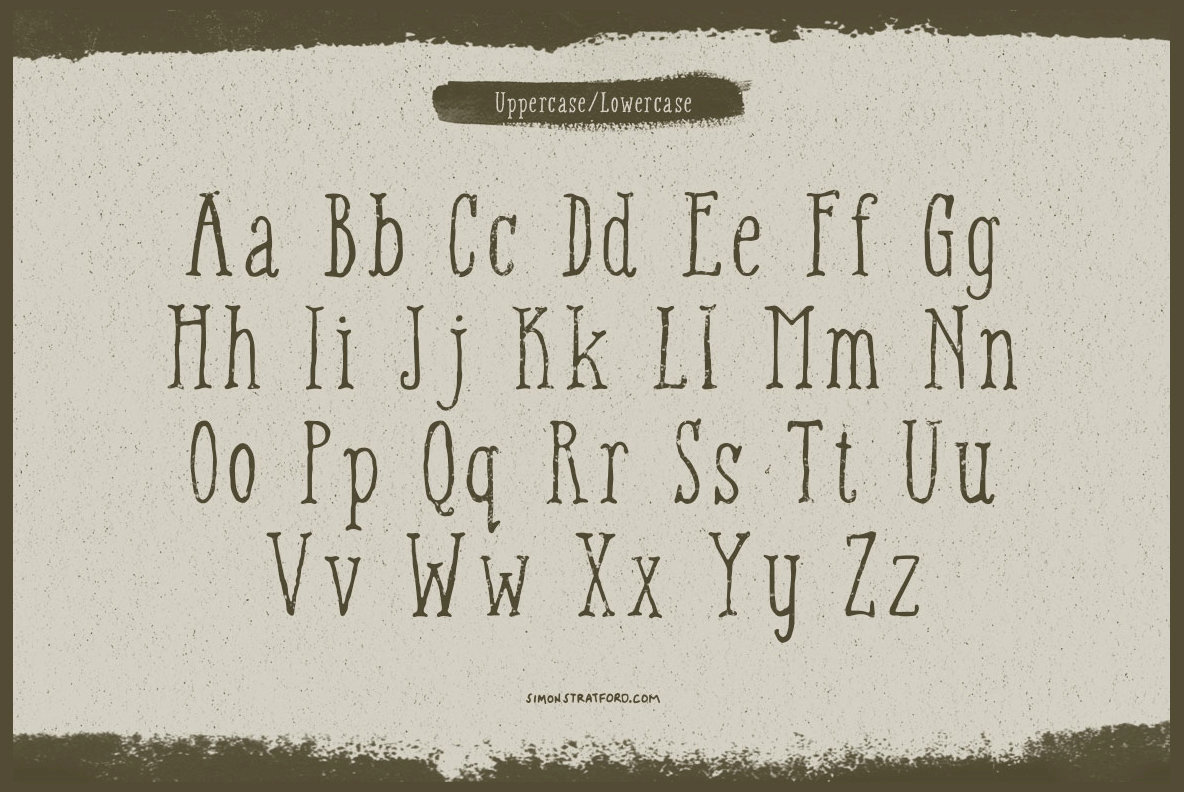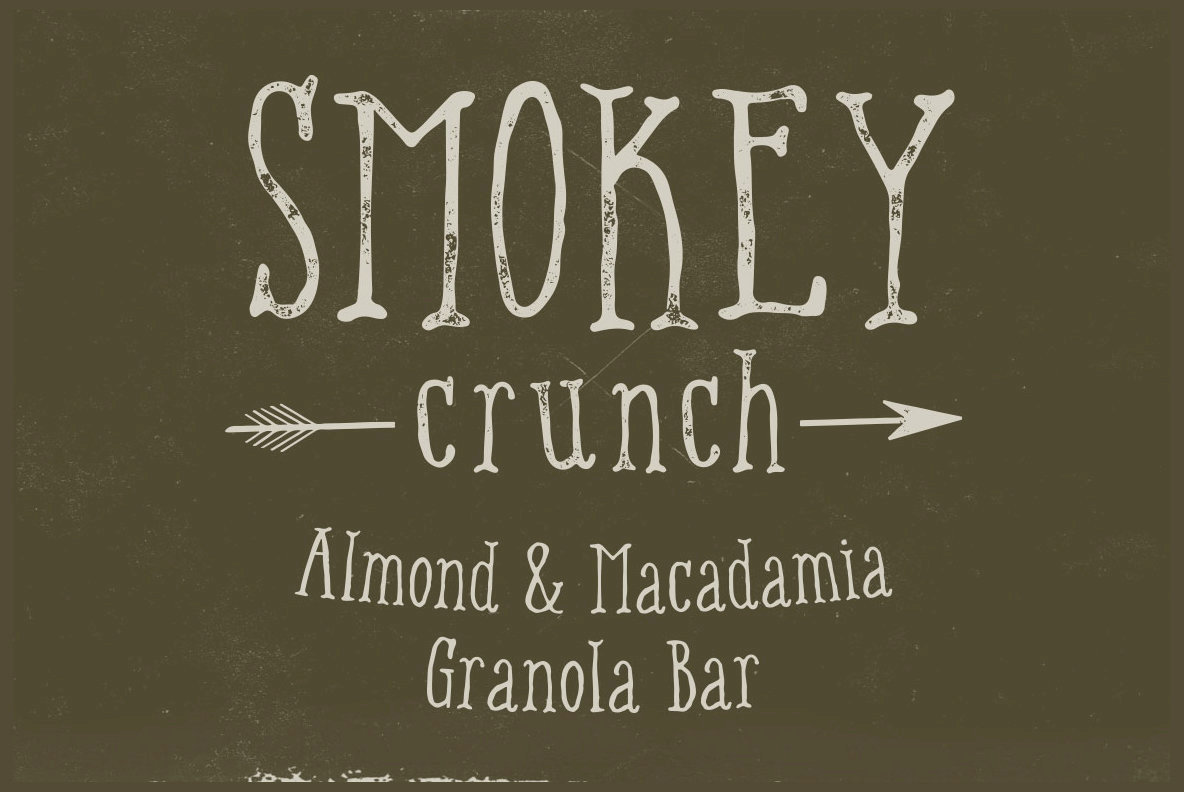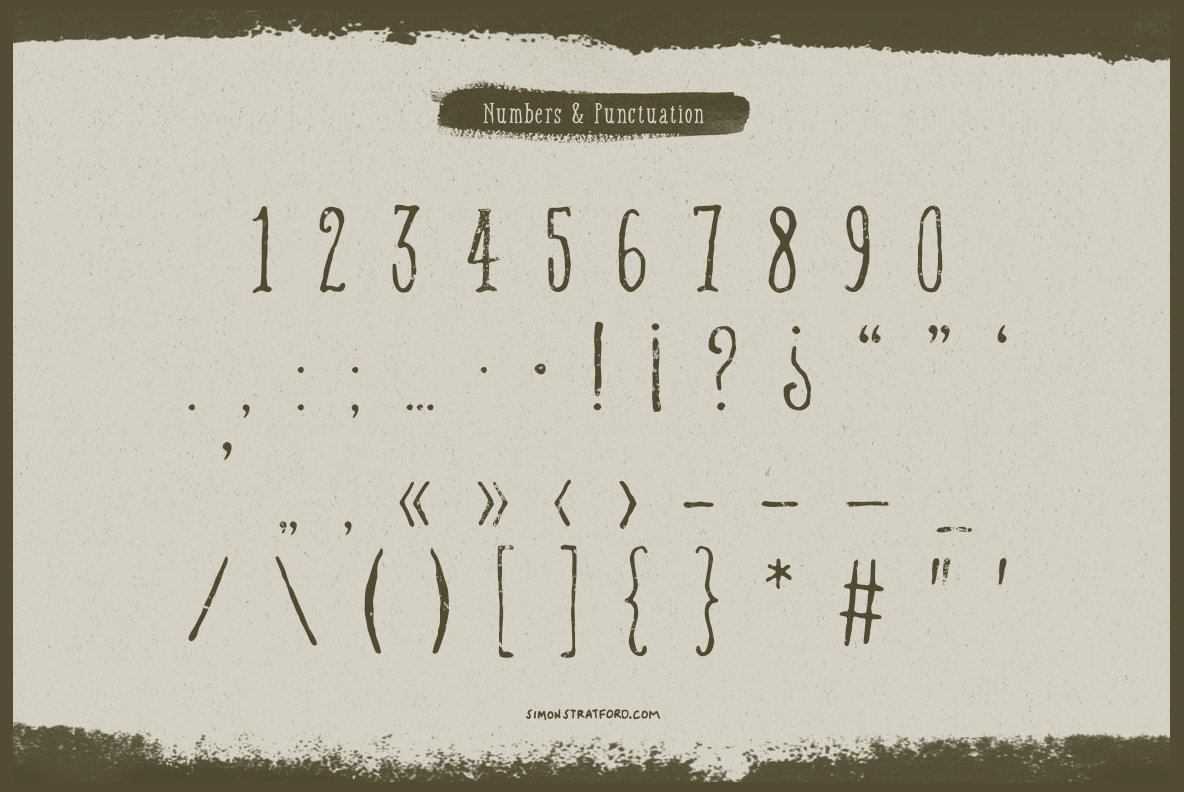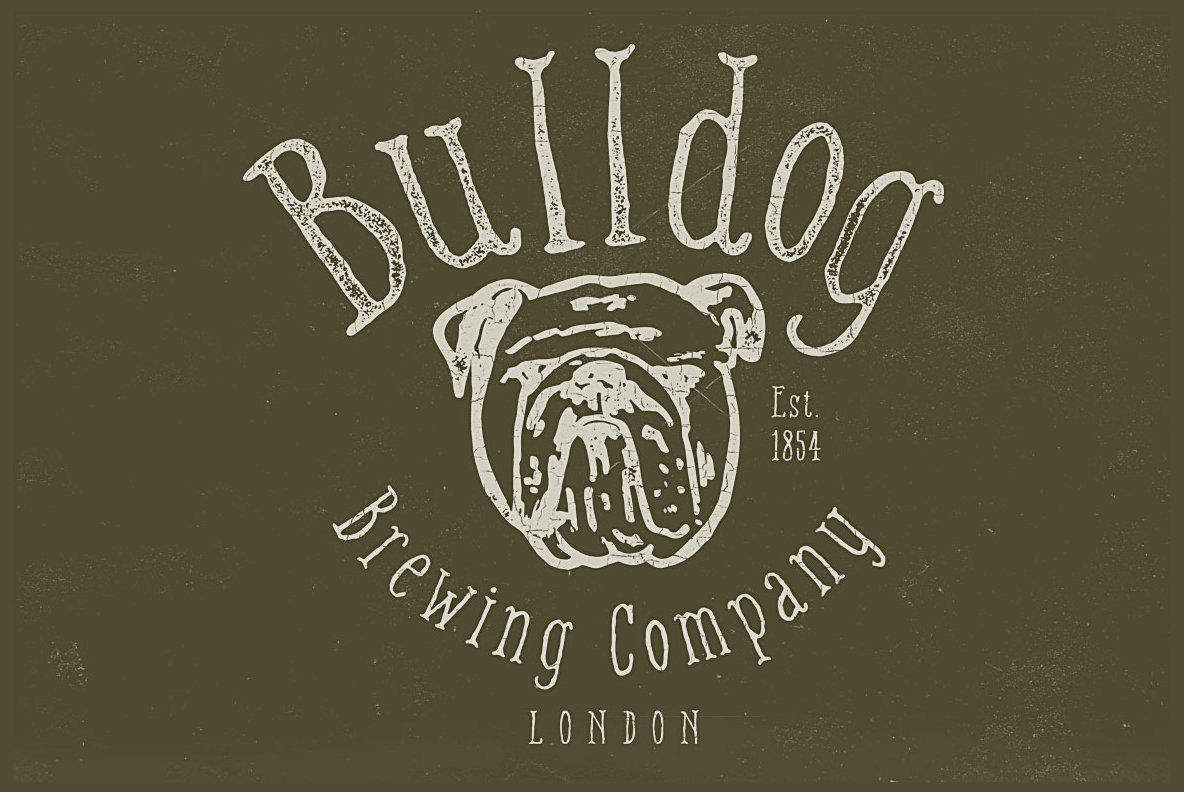
Buckley Serif Font
Buckley
Buckley serif. It's a hand drawn, scruffy little typeface that looks like the illegitimate love child of Garamond and Cochin. 100% handmade.
With its unsteady lines and decorative serifs, Buckley will give your work an informal retro look and feel while retaining a little bit style.
It's quite delicate so is best suited as a display type, having said that its remarkable readable for areas of large body text.
Buckley serif includes:
One weight
Upper and lowercase
Numbers
Punctuation & Symbols
Western European characters
Central European characters
South Eastern European characters